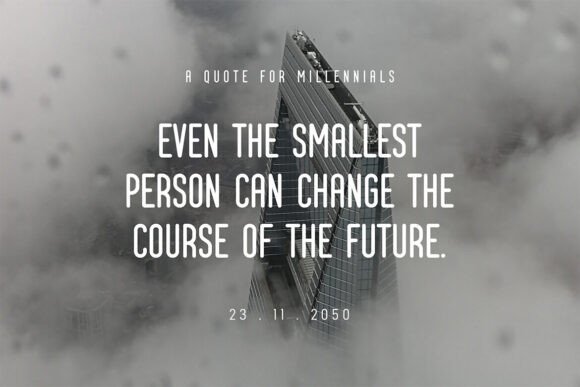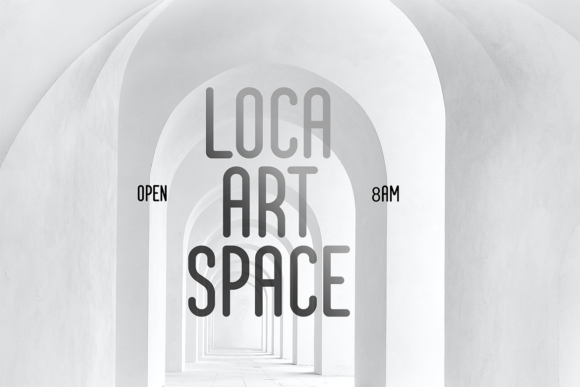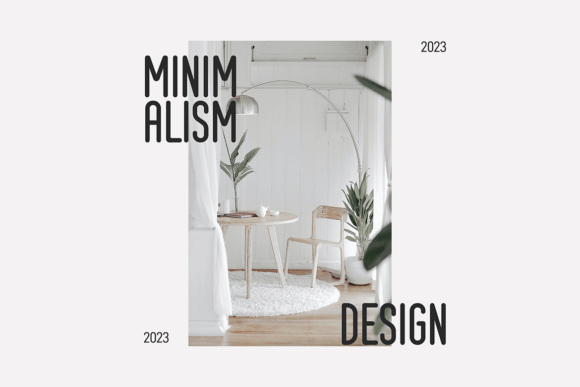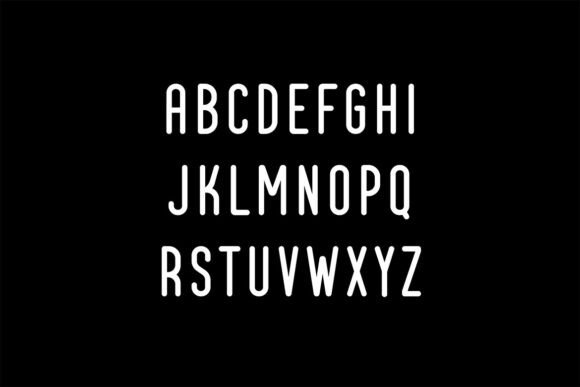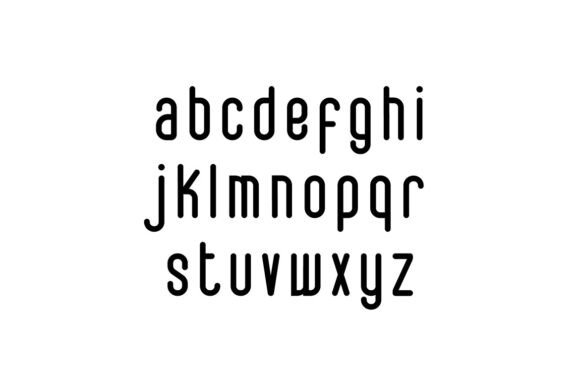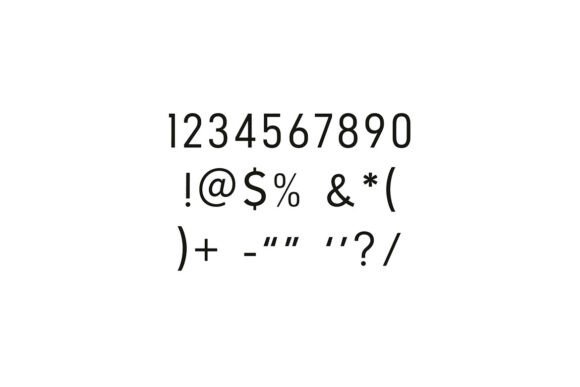
Introduction to Metrofutura Font Font
Fonts play a crucial role in design, and the Metrofutura Font font is a typeface that brings both character and versatility to any project. Whether you’re working on a branding project, a website, or a print design, the Metrofutura Font font offers a unique style that can elevate your work.
Metrofutura is a modern sans-serif typeface.
This font is ideally suited for a wide variety of projects, such as signature, stationery, logo, wedding, typography quotes, magazine or book covers, website headers, branding, and more .
Key Features of Metrofutura Font Font
Why Choose Metrofutura Font Font?
The Metrofutura Font font is more than just a typeface – it’s a design tool that helps you communicate your message with style and clarity. Its unique character set and versatile design make it suitable for a wide range of applications, from elegant invitations to bold headlines.
With its carefully crafted letterforms and balanced proportions, the Metrofutura Font font ensures readability and visual appeal across all mediums.
What makes Metrofutura Font font special?
The Metrofutura Font font stands out with its unique design, exceptional readability, and versatility across various design applications.